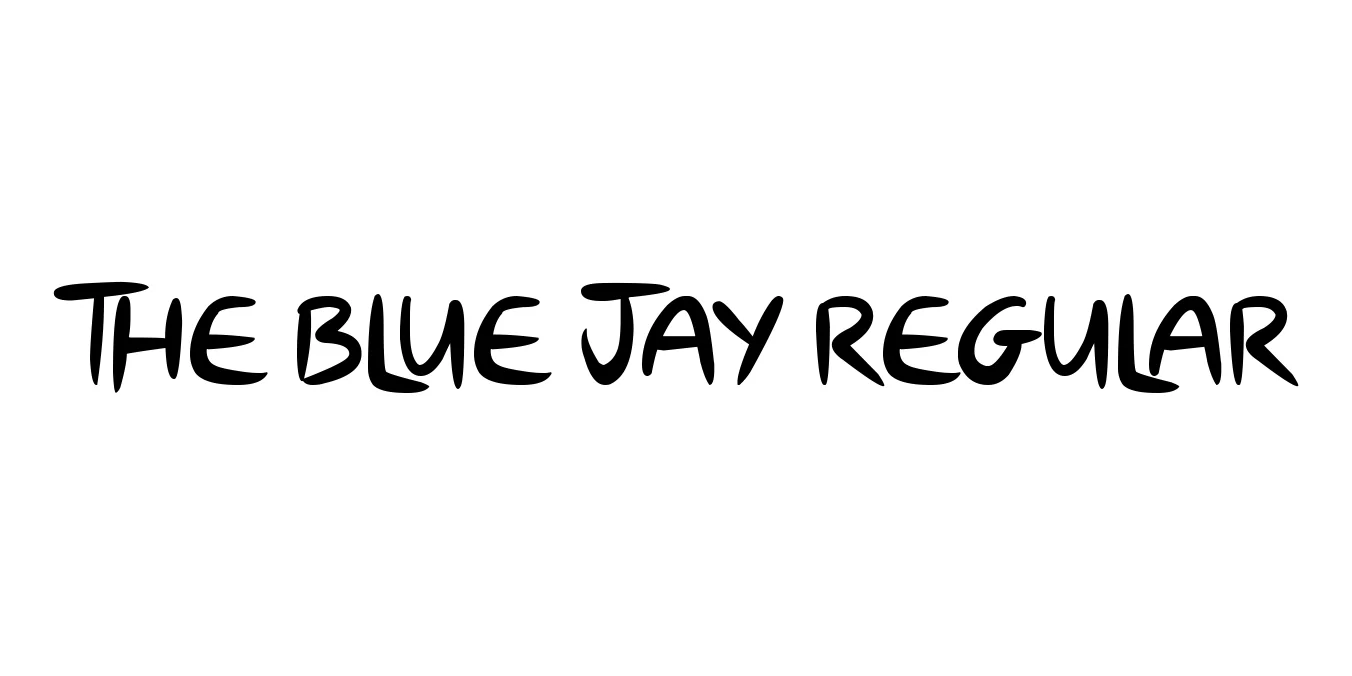
The Blue Jay Regular
Designed by Yusuf Sangdes
The Blue Jay Regular is a modern and expressive brush script font designed to capture the energy and flow of natural handwriting. It features fluid, rhythmic strokes that provide a sense of authenticity and organic motion to any layout. The typeface includes a comprehensive set of uppercase and lowercase characters, alongside specialized ligatures that allow designers to create unique typographic arrangements that mimic professional hand-lettering.
Ideal for contemporary branding and high-impact advertising, The Blue Jay Regular excels in projects that require a distinct personal touch. Its versatile nature makes it highly suitable for everything from social media graphics and personalized greeting cards to large-scale posters and apparel design. The font strikes a perfect balance between sophisticated elegance and a casual, approachable aesthetic, ensuring it remains a staple for creative professionals.
The Blue Jay Regular Best Uses
Creating unique logos and identity systems for lifestyle and creative startups.
Designing eye-catching Instagram stories, quote graphics, and visual content.
Perfect for custom t-shirt typography, hoodies, and merchandise prints.
An elegant choice for wedding invitations, event menus, and greeting cards.